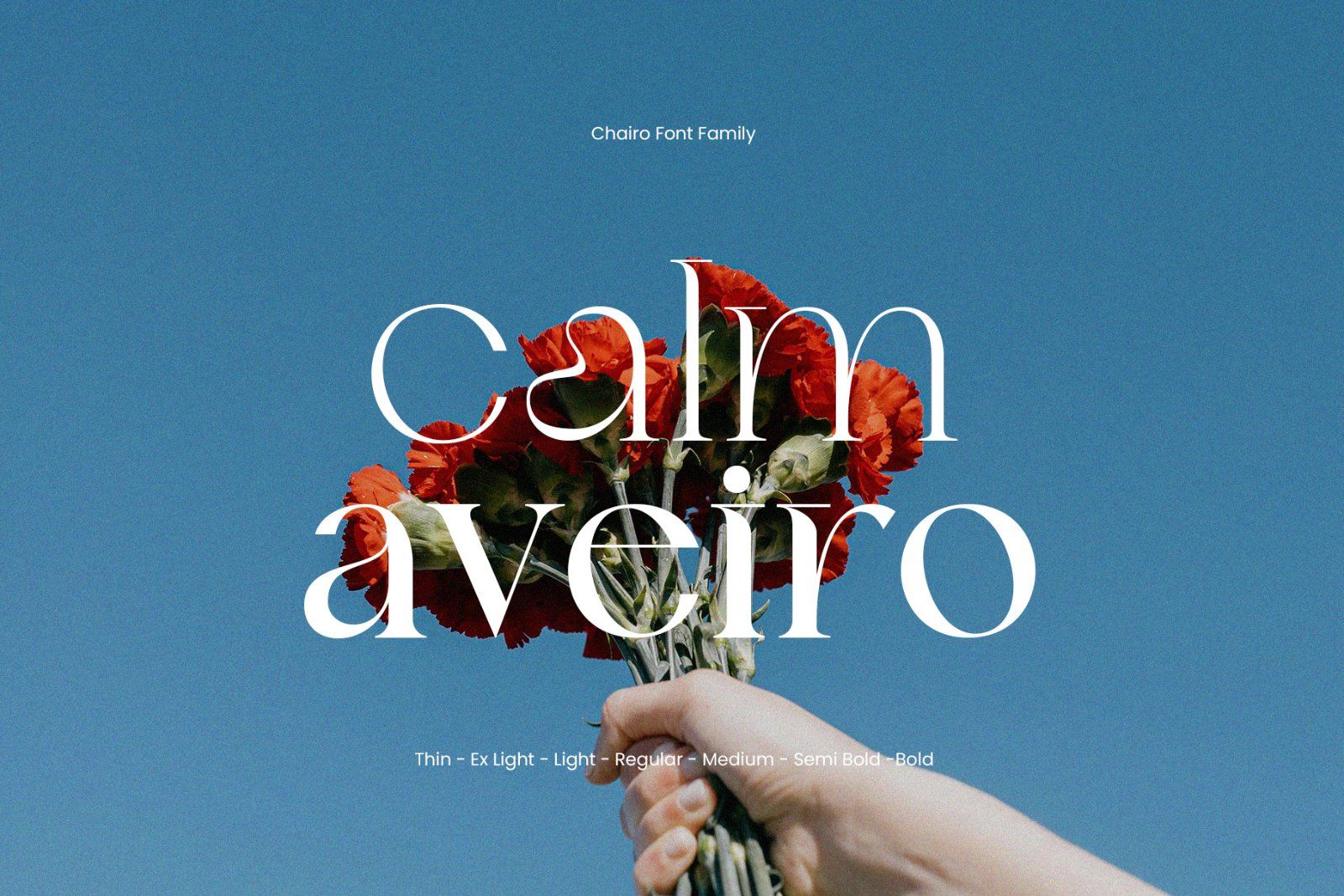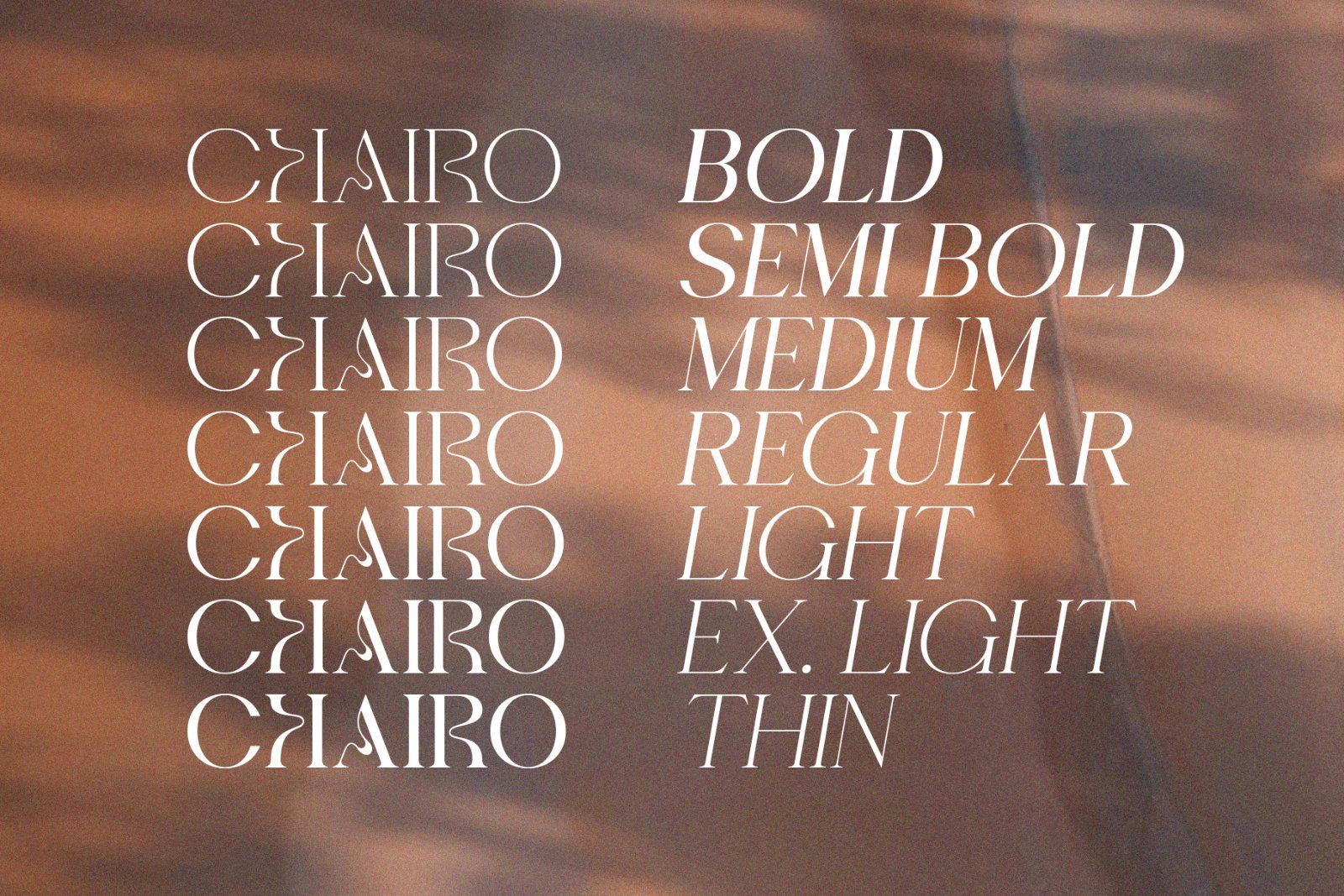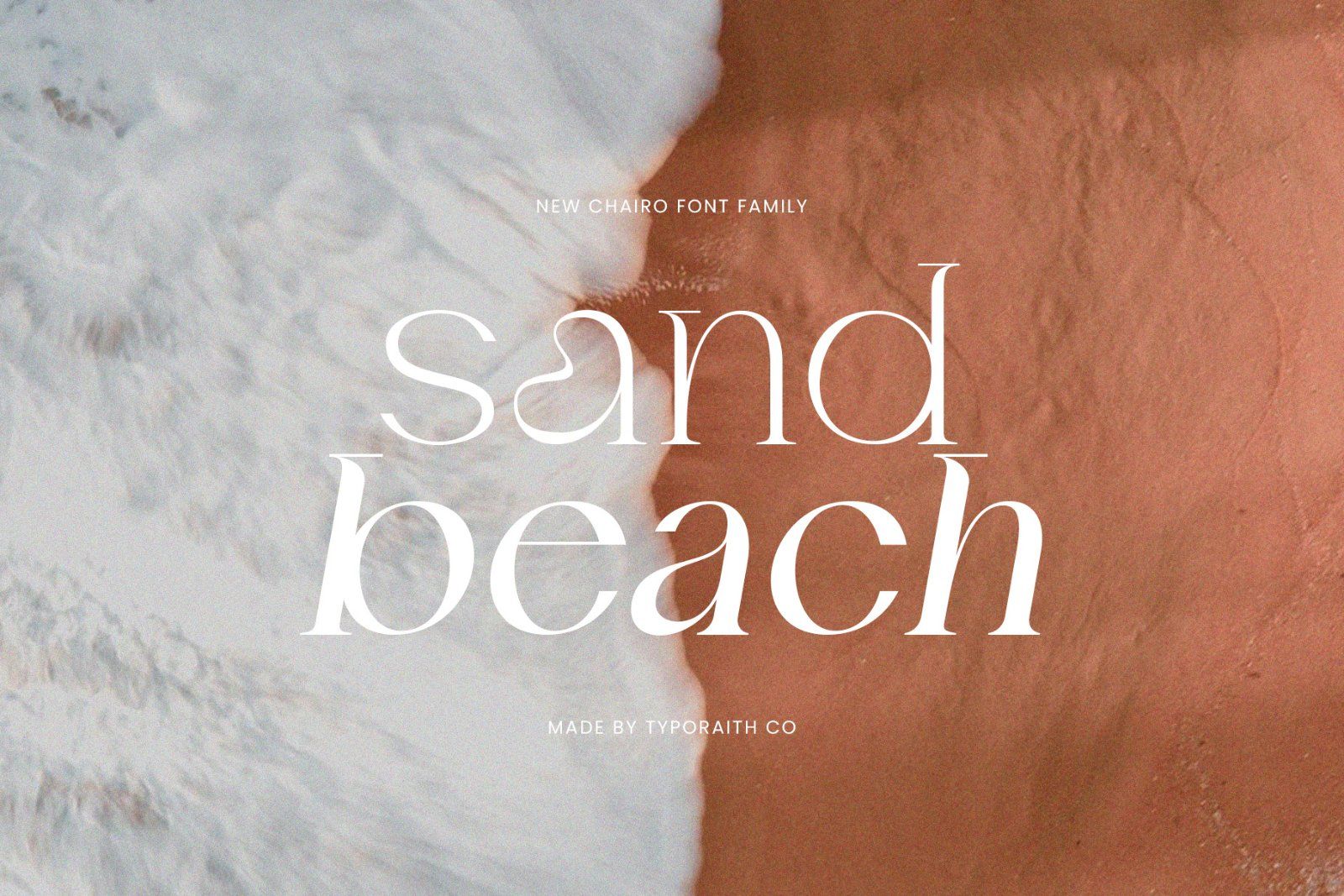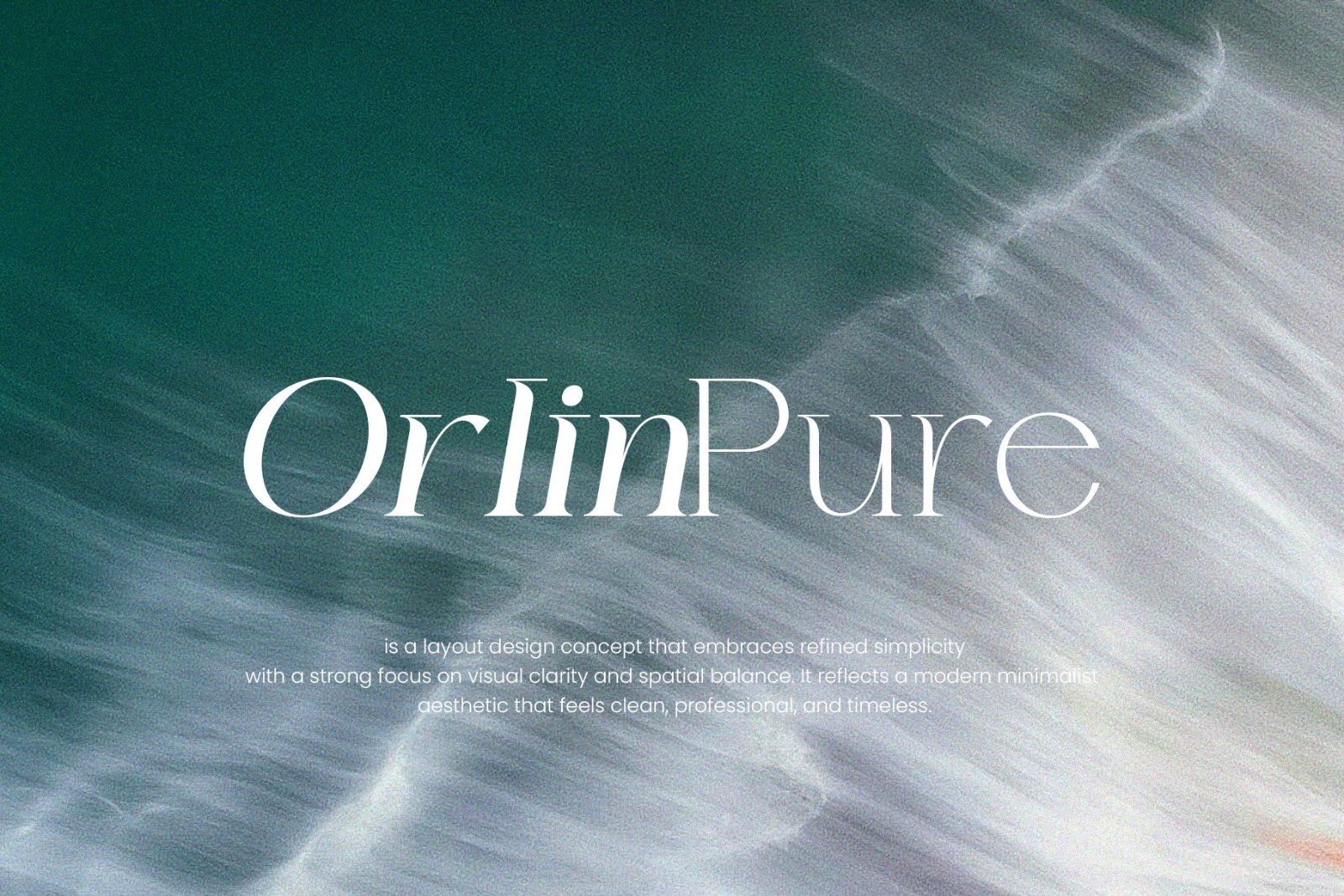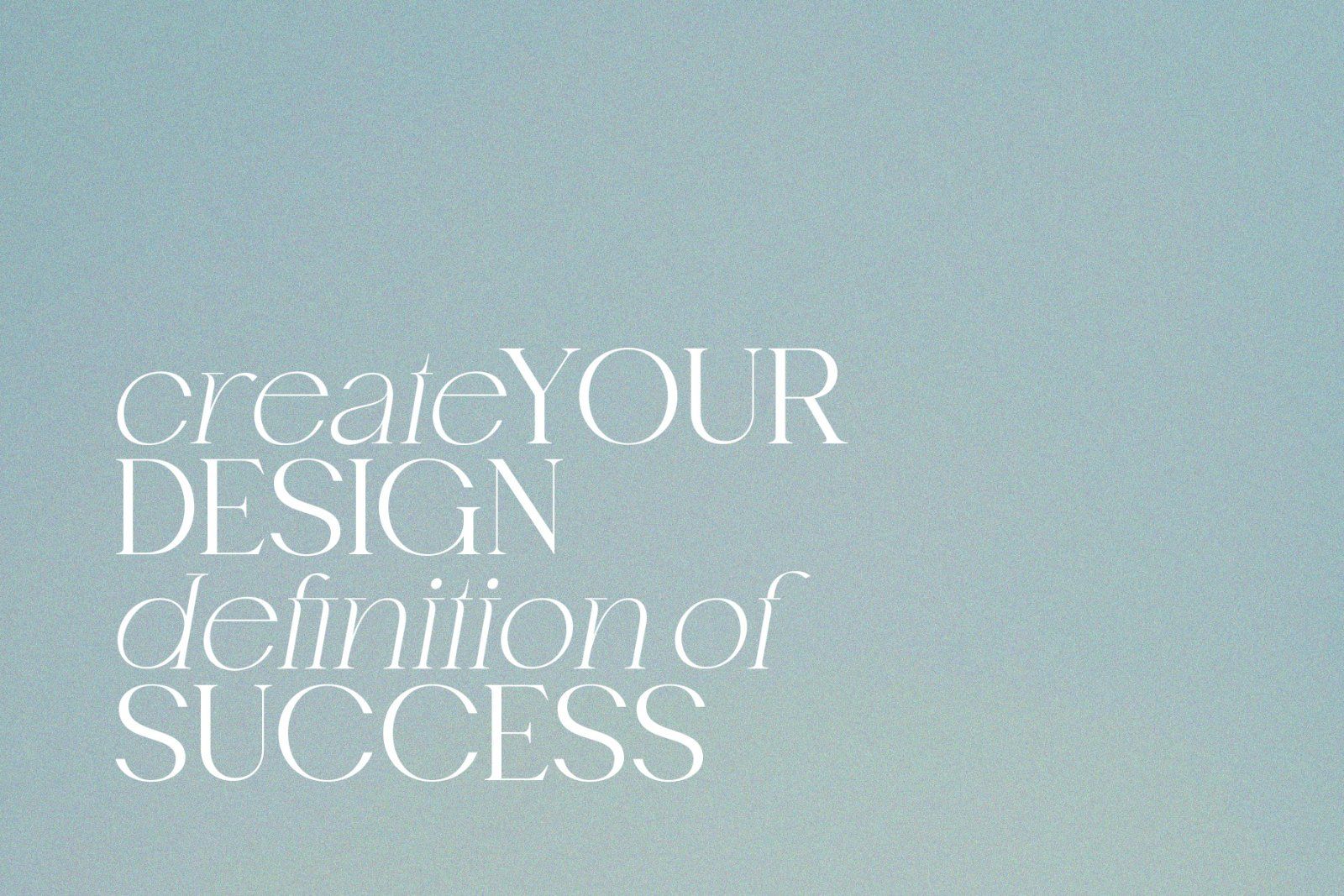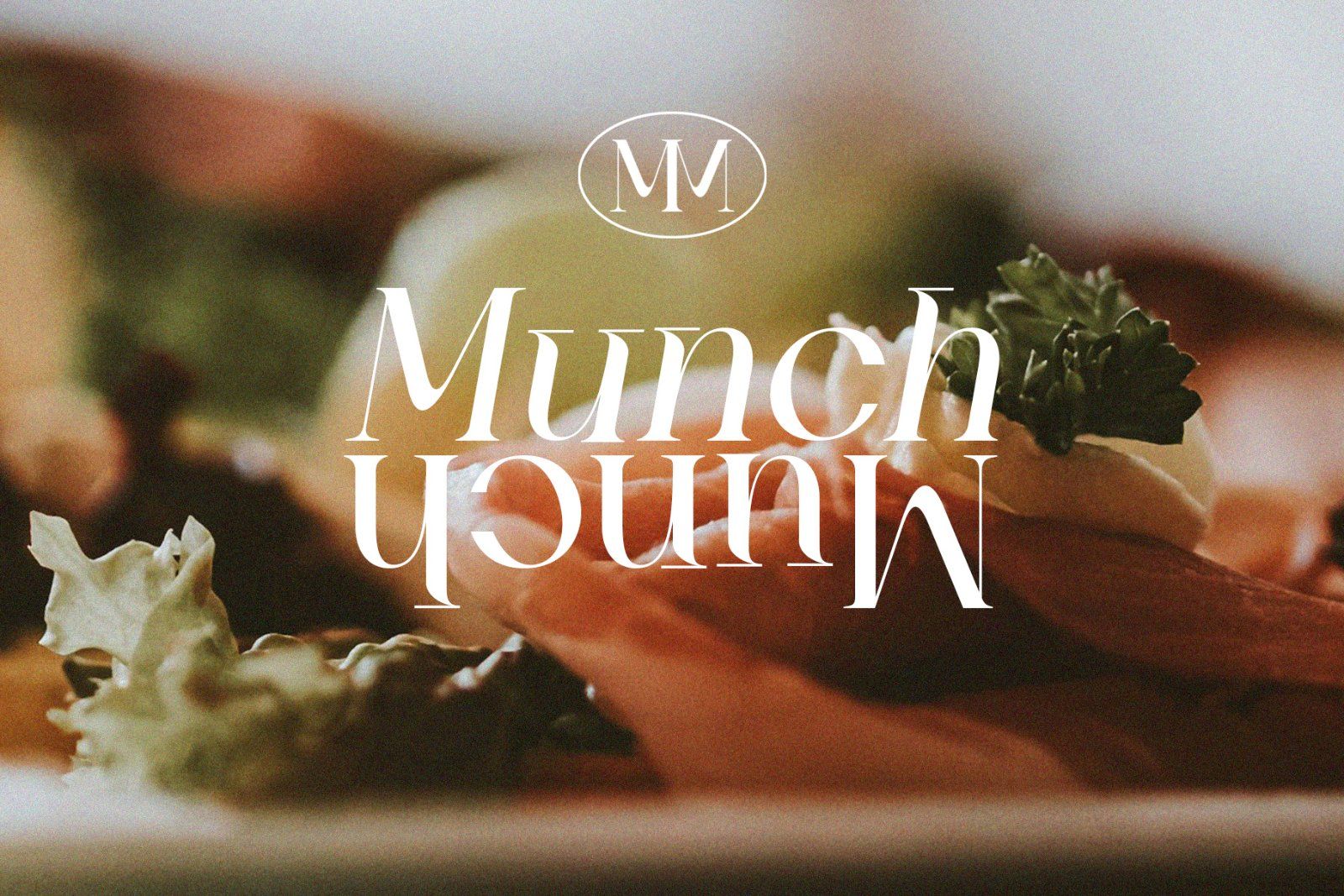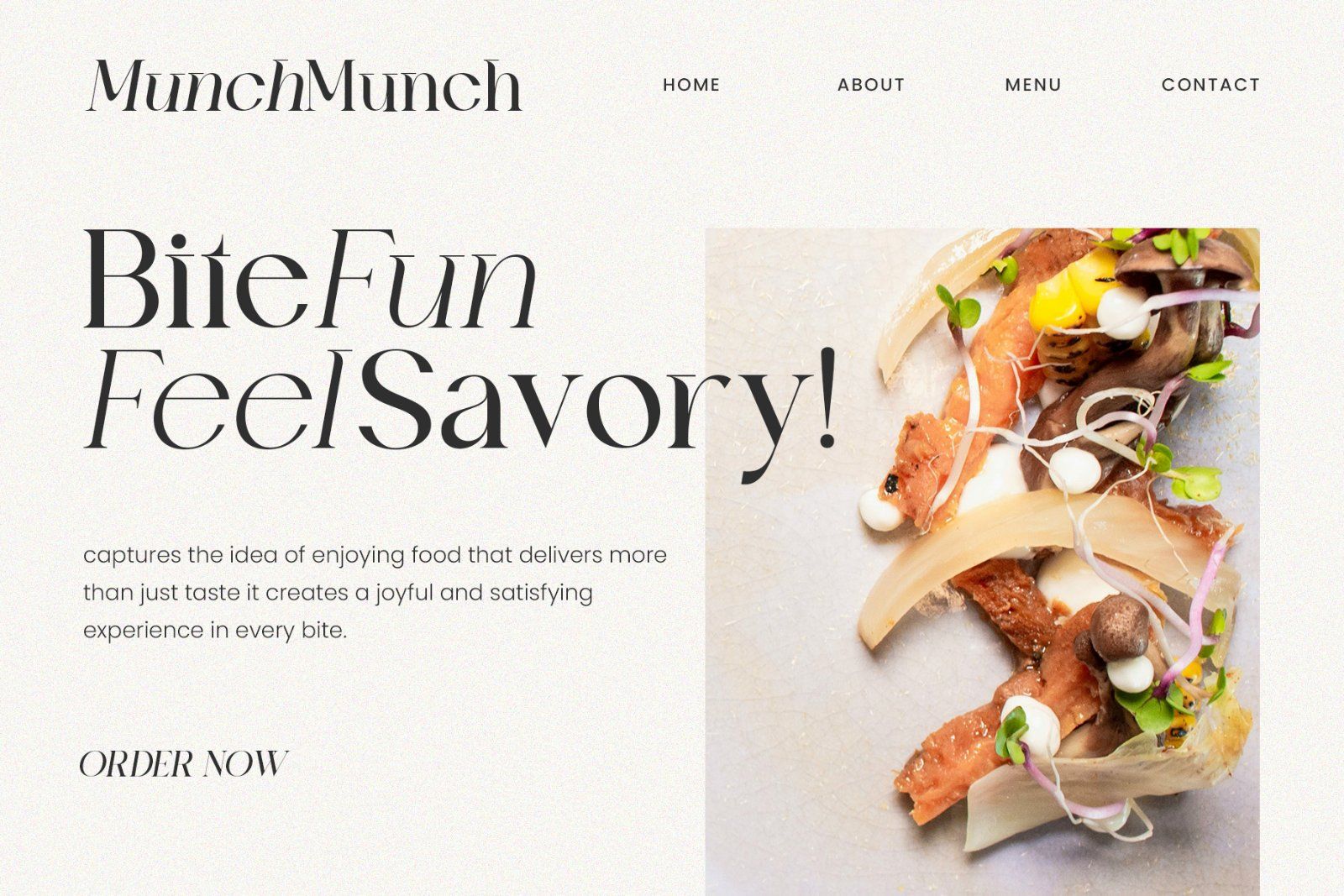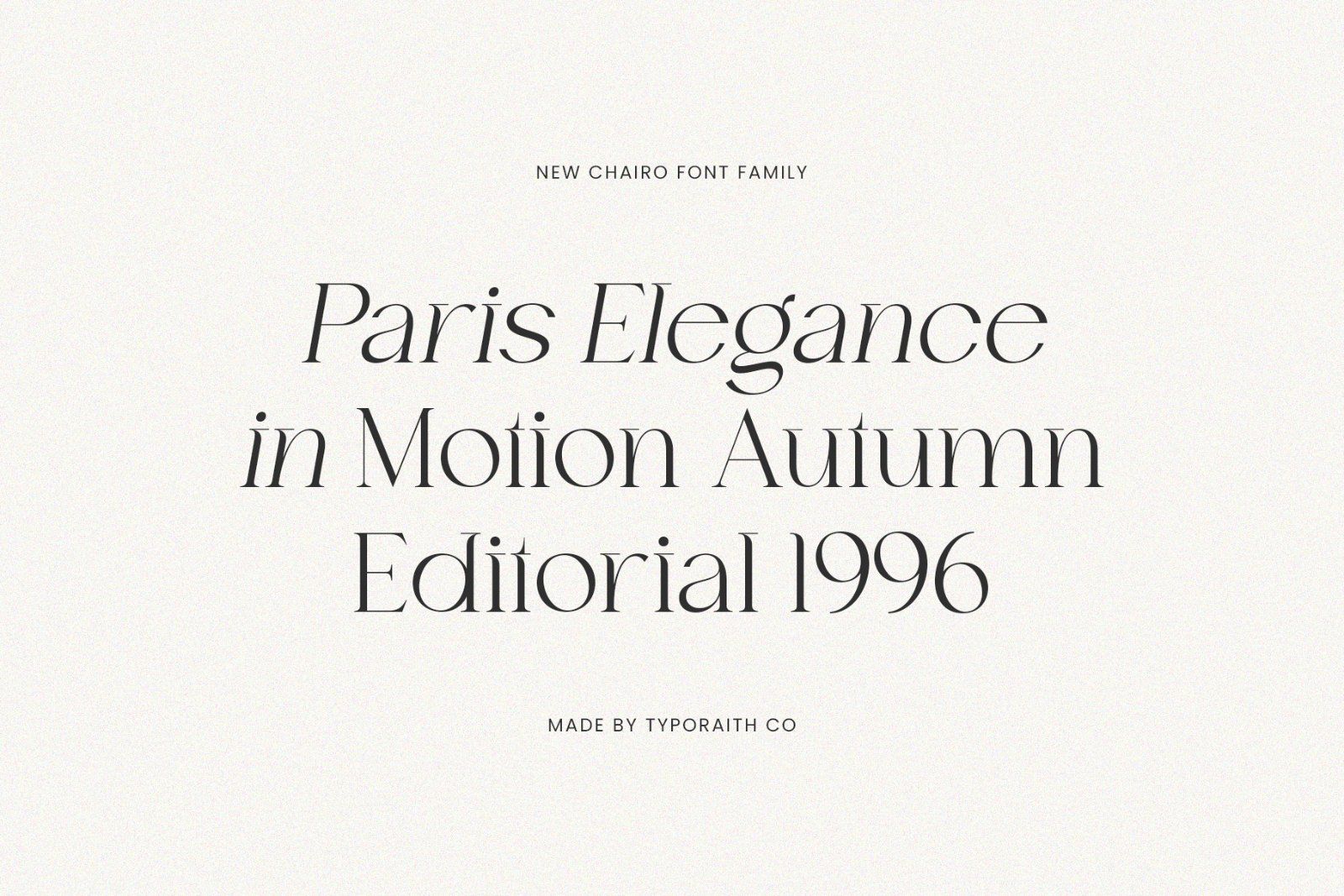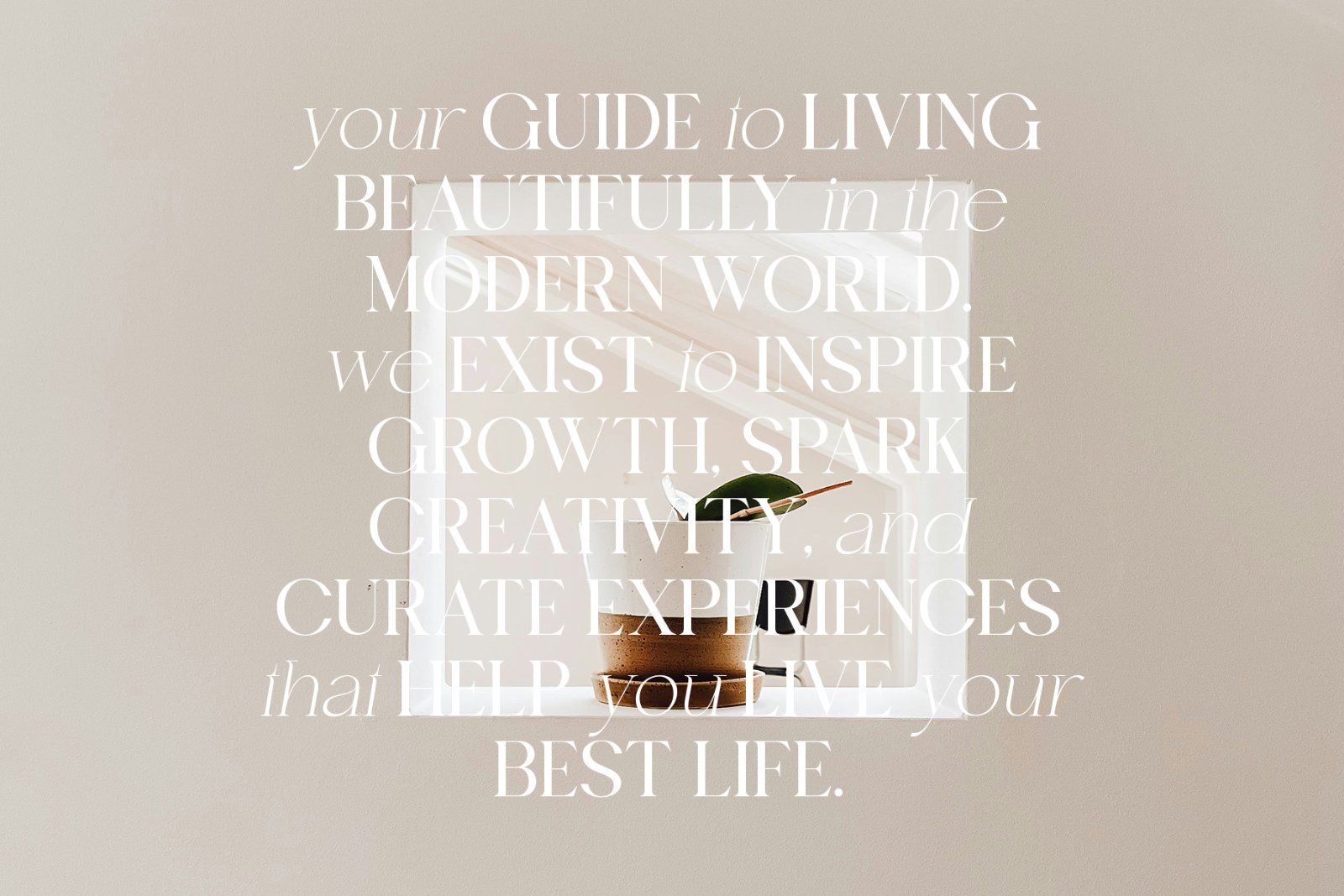
Chairo is a refined editorial serif font family designed to bring elegance, clarity, and modern sophistication to your creative work. With its graceful curves, distinctive letterforms, and balanced proportions, Chairo delivers a timeless aesthetic perfect for premium visual design.
This typeface family includes 14 carefully crafted weights with matching italics, giving you full flexibility for everything from bold headlines to delicate body text. Whether you’re designing for branding, editorial layouts, fashion campaigns, or luxury packaging, Chairo adds a polished and professional touch.
Designed with precision and versatility in mind, Chairo blends classic serif beauty with contemporary character making it ideal for both print and digital use.
• Editorial & magazine design
• Branding & visual identity
• Luxury logos
• Fashion & beauty projects
• Wedding invitations
• Packaging design
• Social media & web design
• Uppercase & lowercase letters
• Stylish alternates
Elevate your typography with Chairo a modern editorial serif made to express elegance, confidence, and timeless style.